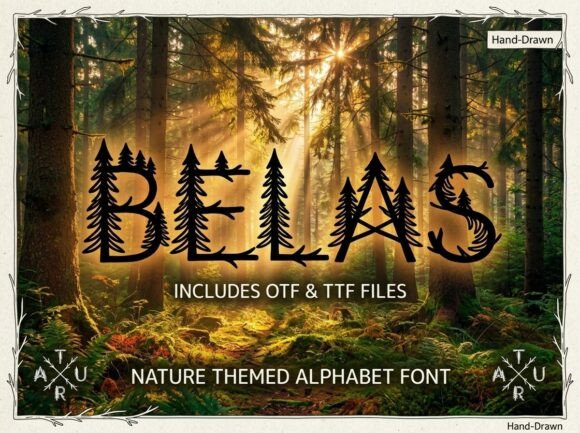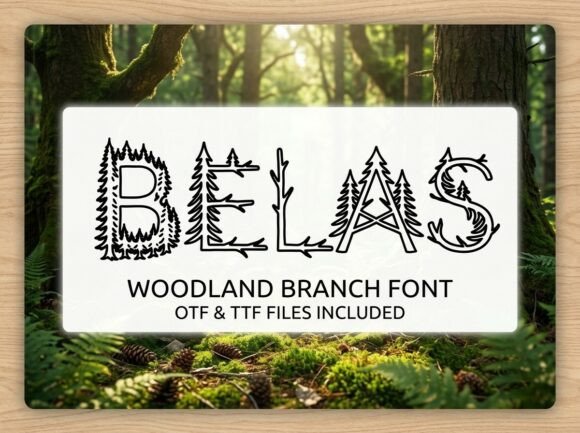
Unleash the Wild with Belas: A Rustic Display Typeface
Are you tired of sleek and modern fonts that lack character? Look no further than Belas, a rustic display typeface that embodies the untamed and organic spirit of the great outdoors. This unique font is crafted from hand-drawn pine trees, jagged branches, and forest foliage, making it the perfect choice for designers and crafters who want to add a touch of wilderness to their projects.
The Inspiration Behind Belas
Belas is more than just a font – it’s an experience. Inspired by the natural world, this font features bold letterforms that are masterfully constructed from rhythmic, hand-drawn elements. Each character is carefully crafted to evoke the feeling of a forest, with pine trees, branches, and foliage weaving together to form a cohesive and eye-catching design.
Key Features of Belas
- Heavy Illustrative Weight: Belas boasts a heavy illustrative weight that gives it a bold and attention-grabbing presence.
- Outdoor Personality: With its rustic and organic feel, Belas is the perfect choice for projects that require an outdoor personality.
- Hand-Drawn Elements: Each character is crafted from hand-drawn pine trees, branches, and forest foliage, giving Belas a unique and authentic feel.
Perfect for Wilderness-Inspired Projects
Belas is the premier choice for designers and crafters who want to create wilderness-inspired projects that stand out from the crowd. Whether you’re working on:
- Independent National Park Branding: Create a bold and eye-catching identity for your national park project with Belas.
- Camping Gear Logos: Give your camping gear logo a rustic and outdoorsy feel with Belas.
- Wilderness Retreat Identities: Create a welcoming and natural identity for your wilderness retreat with Belas.
- Back-to-Nature Social Media Headers: Add a touch of wilderness to your social media headers with Belas.
Why Choose Belas?
With so many fonts on the market, why choose Belas? Here are just a few reasons why Belas stands out:
- Unique and Authentic: Belas is a one-of-a-kind font that is crafted from hand-drawn elements, giving it a unique and authentic feel.
- Versatile: Belas can be used for a wide range of projects, from national park branding to camping gear logos.
- Attention-Grabbing: With its bold and heavy illustrative weight, Belas is sure to grab attention and make your project stand out.
Tips for Using Belas
Here are a few tips for getting the most out of Belas:
- Experiment with Colors: Belas looks great in a range of earthy tones, from greens and browns to blues and grays.
- Play with Texture: Add an extra layer of depth to your design by experimenting with texture and overlaying Belas with natural elements.
- Keep it Bold: Belas is a bold font, so don’t be afraid to keep it bold and eye-catching.
Belas is a unique and captivating font that is perfect for designers and crafters who want to add a touch of wilderness to their projects. With its hand-drawn elements, heavy illustrative weight, and outdoor personality, Belas is the premier choice for wilderness-inspired projects. So why settle for a sleek and modern font when you can unleash the wild with Belas?